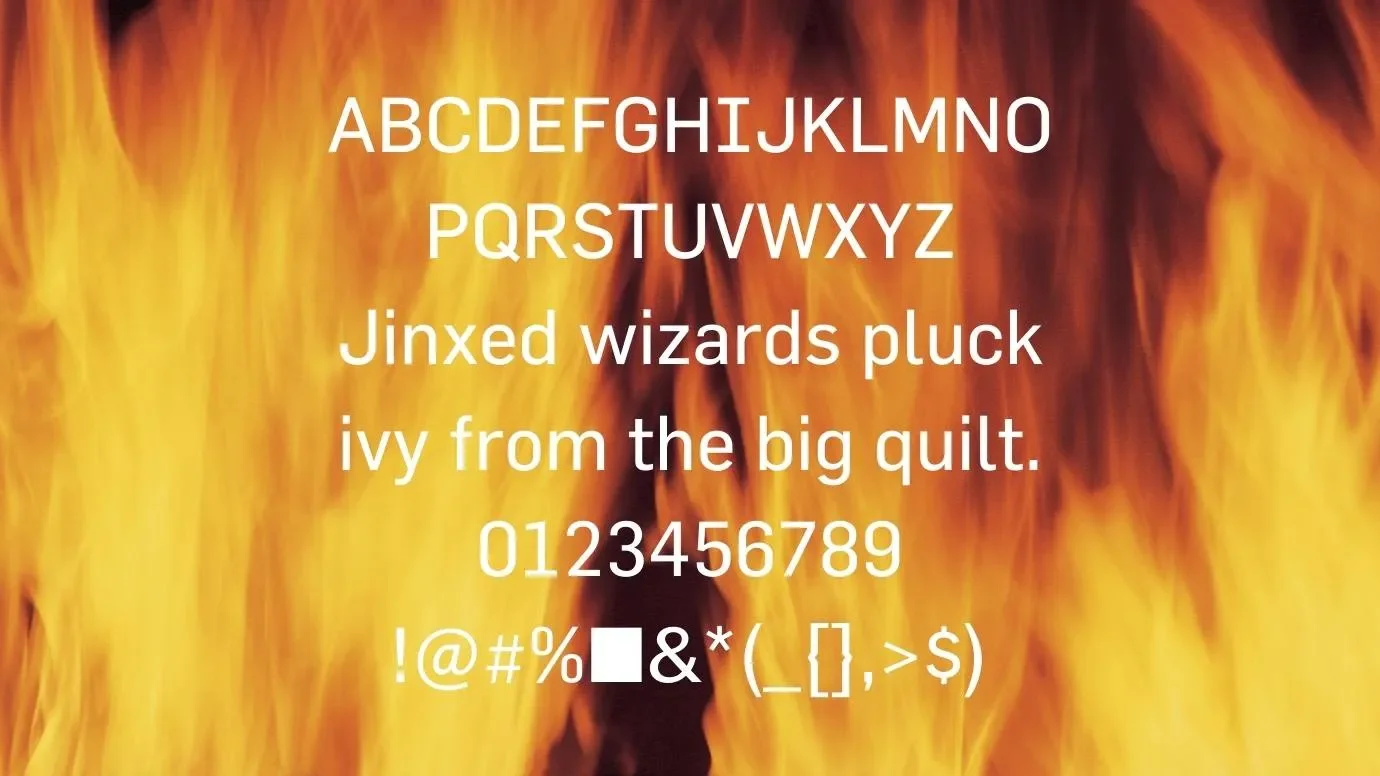
Here, We are consulting a new typeface known as Flama Font. It belongs to the modern Sans-serif typeface. This attractive typeface was designed by Mr. Mario Feliciano. It comes in 7 stylish weights and more than 249 unique and bold glyphs with 1000 units/em. In 2006, this typeface was released for the first time.
The best look of its sold letters provides us an impressive size and beautiful look of our designs. This typeface has a fantastic and elegant look that’s why it is good for pairing with Rajdhani Font and Toyota Font.
This beautiful typeface is best for creating short and long paragraphs due to its smooth size and delicious look. So according to your demand, you can use this typeface anywhere.
Reason to Use Flama Font
You can use this stunning typeface for various designing fields and it is also suitable for posters, daily reports, games designs, animated designs, web designs, and a lot more. You can create articles, presentations, titlings, animated logos, and so on.
By using this cozy typeface, you can create wedding cards, greeting cards, invitation cards, gift cards, and other high-quality cards designs. You can create outstanding designs and give awesome look to your text.
Many web designers pick this stunning typeface for the best result of their projects and designs. You can create t-shirt designs and mug designs.
This is also good for video game and movies titles. This typeface is useful for clothes companies and branding logos. You can use its paid version for all international projects and get an amazing result from this font.
Who created Flama Font?
A very famous and well-known designer named Mr. Mario Feliciano. It belongs to the Sans-serif typeface.
Can I use Flama Font for my logo designs?
This typeface is best for logo designs and other designing purposes. It is also suitable for designing apps like Adobe Photoshop and Canva.